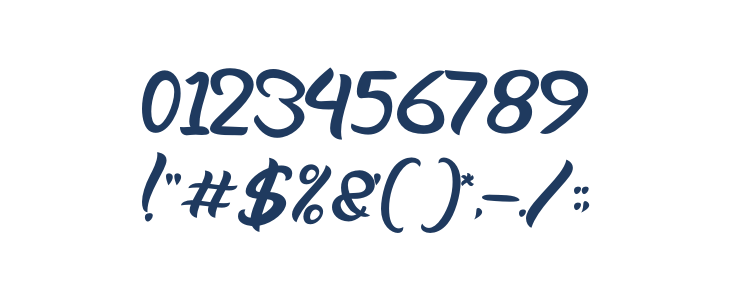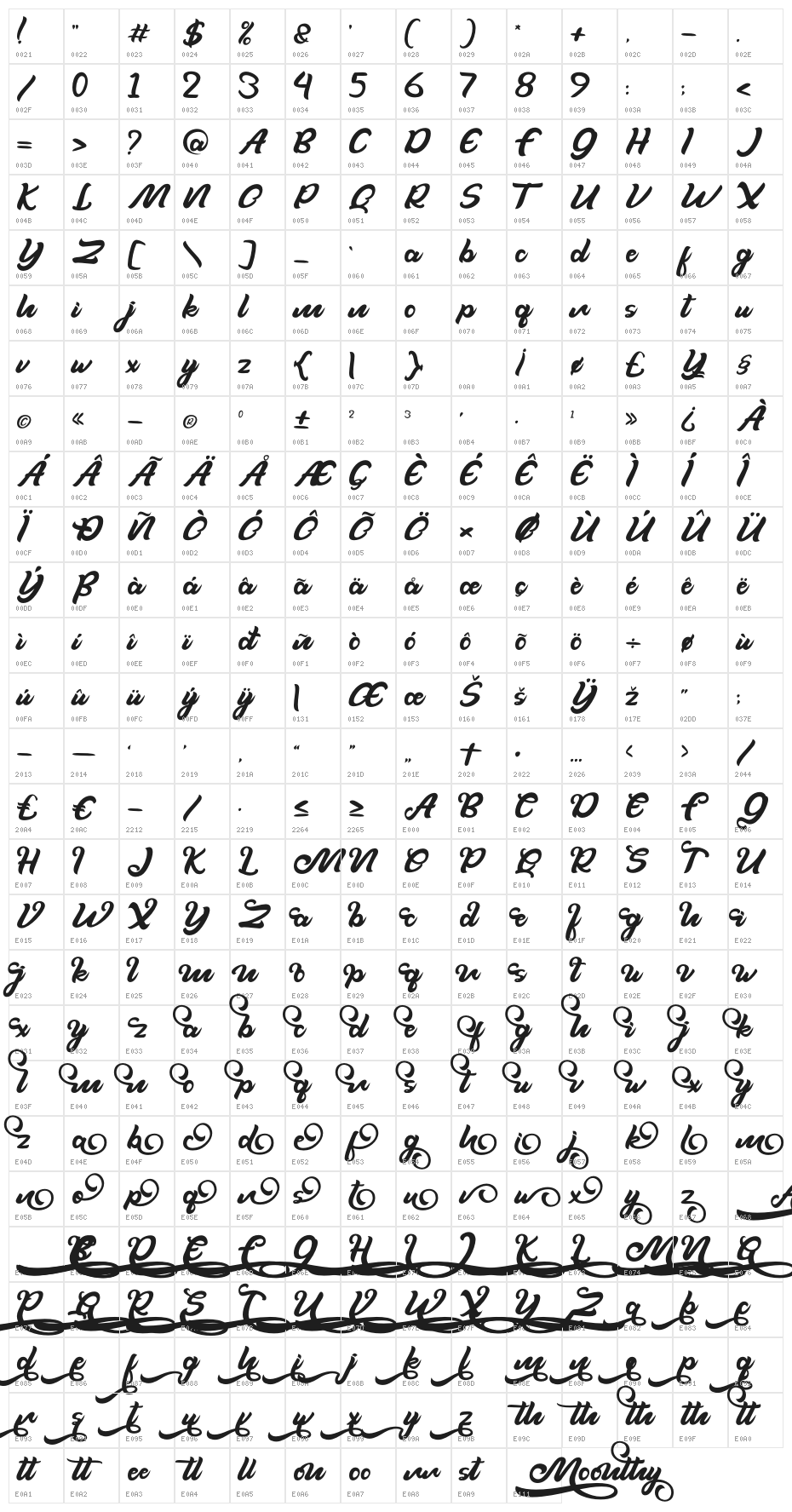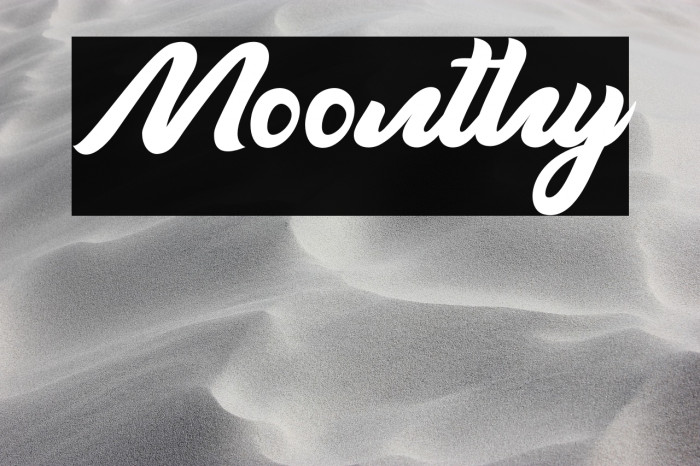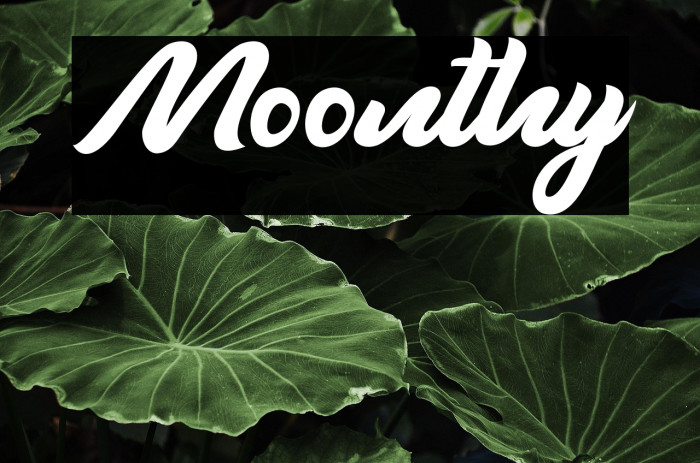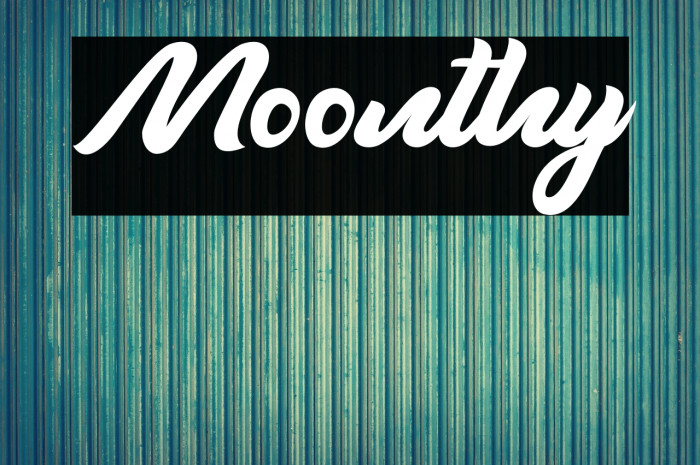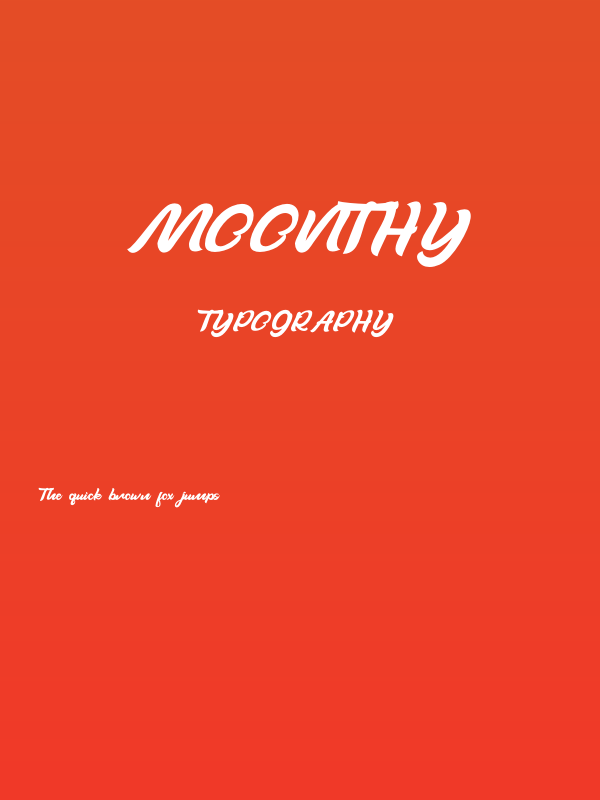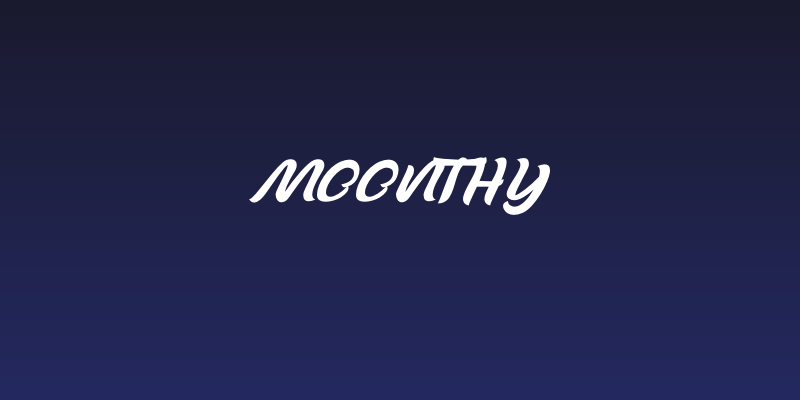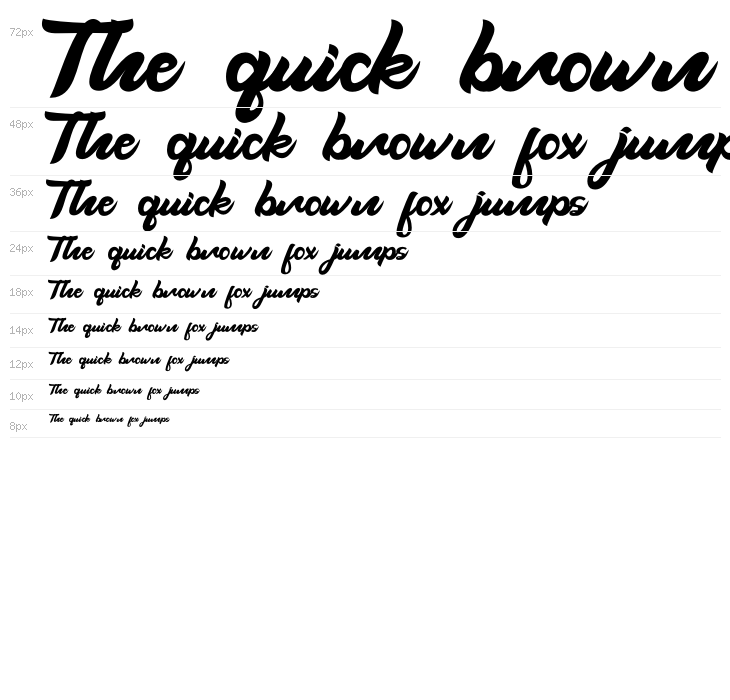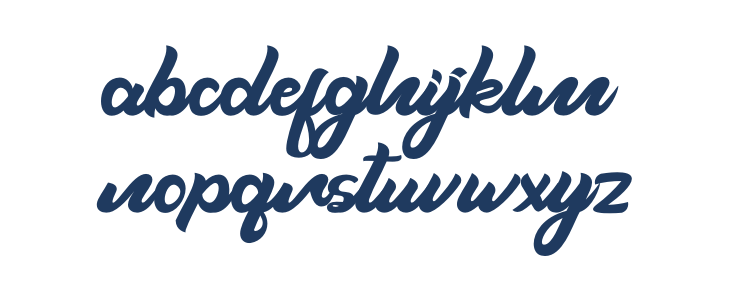
Moonthy Font
Moonthy Description
This font features a bold and flowing script style, characterized by its smooth, connected strokes and elegant curves. The uppercase letters are slightly more upright, while the lowercase letters exhibit a more pronounced slant, adding to the dynamic and fluid appearance. The numerals and special characters maintain the same stylistic flair, ensuring consistency across all glyphs. The overall look is both modern and classic, making it versatile for various design applications. The bold weight and high contrast between thick and thin strokes enhance its readability and visual impact.
| Overall Style | Modern, Classic |
| Use Case | Logos, Headlines, Invitations |
| Proposed Projects | Ideal for branding, invitations, greeting cards, and elegant packaging designs. |